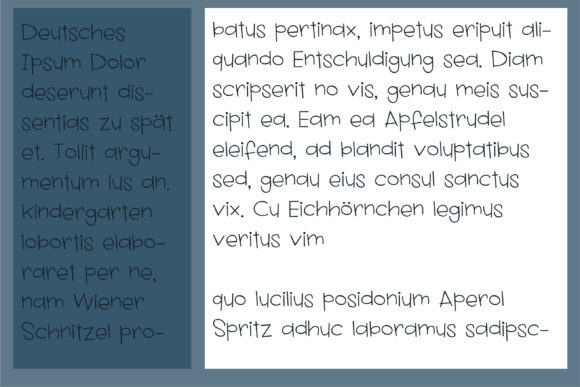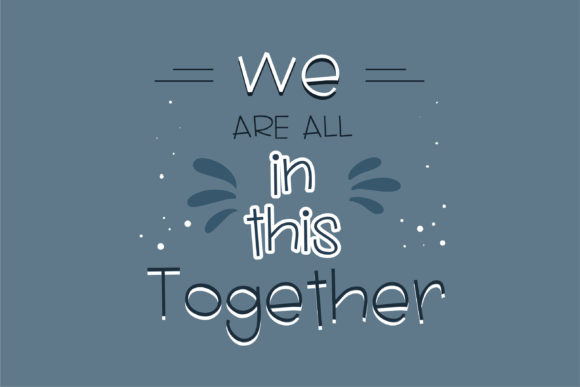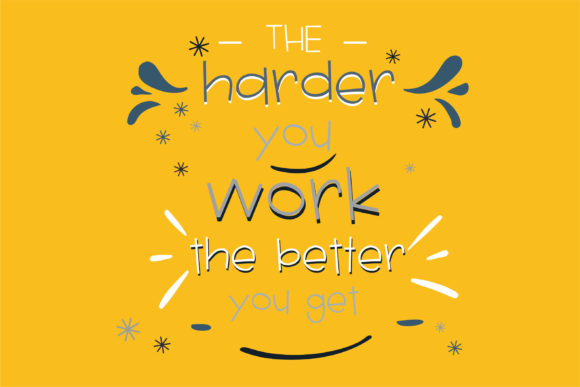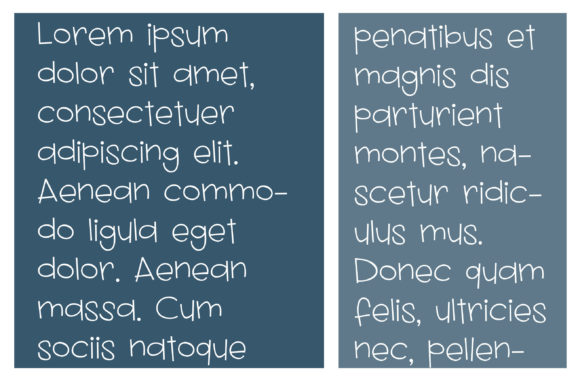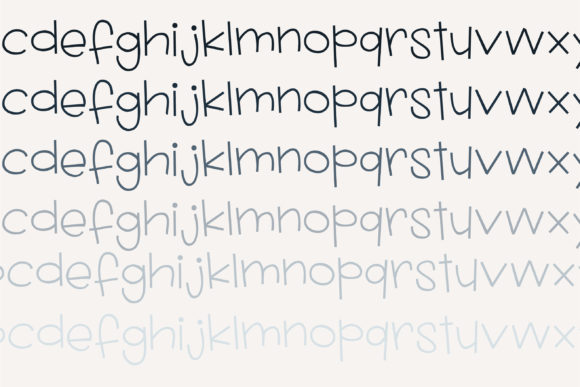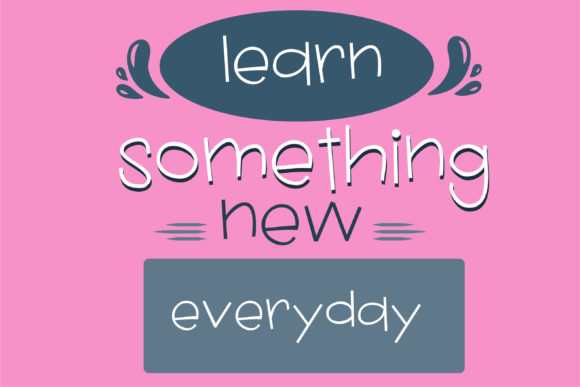
Class Clown Font
About Class Clown Font
Introducing Class Clown, a clean and slim sans serif font. This font is characterized by its clean and slim style, which creates a sense of modernity and sophistication. It’s not just a font, it’s a tool that brings your designs to life.
The characters in Class Clown are clean and slim, adding a touch of personality to your designs. The font is perfect for any design that needs a modern and sophisticated touch. Whether it’s a poster, a flyer, or a print, Class Clown can make your designs more appealing and engaging.
One of the best features of Class Clown is its versatility. It’s a great choice for any design that needs a clean and slim touch. Whether it’s a poster, a brochure, a website, or a social media post, Class Clown can make your designs more appealing and engaging.
In conclusion, Class Clown is more than just a font. It’s a design asset that can elevate your work and make it stunning. Whether you’re designing a logo, crafting a social media post, or creating a movie title, Class Clown can help you achieve your design goals. So why wait? Start creating stunning work with Class Clown today!